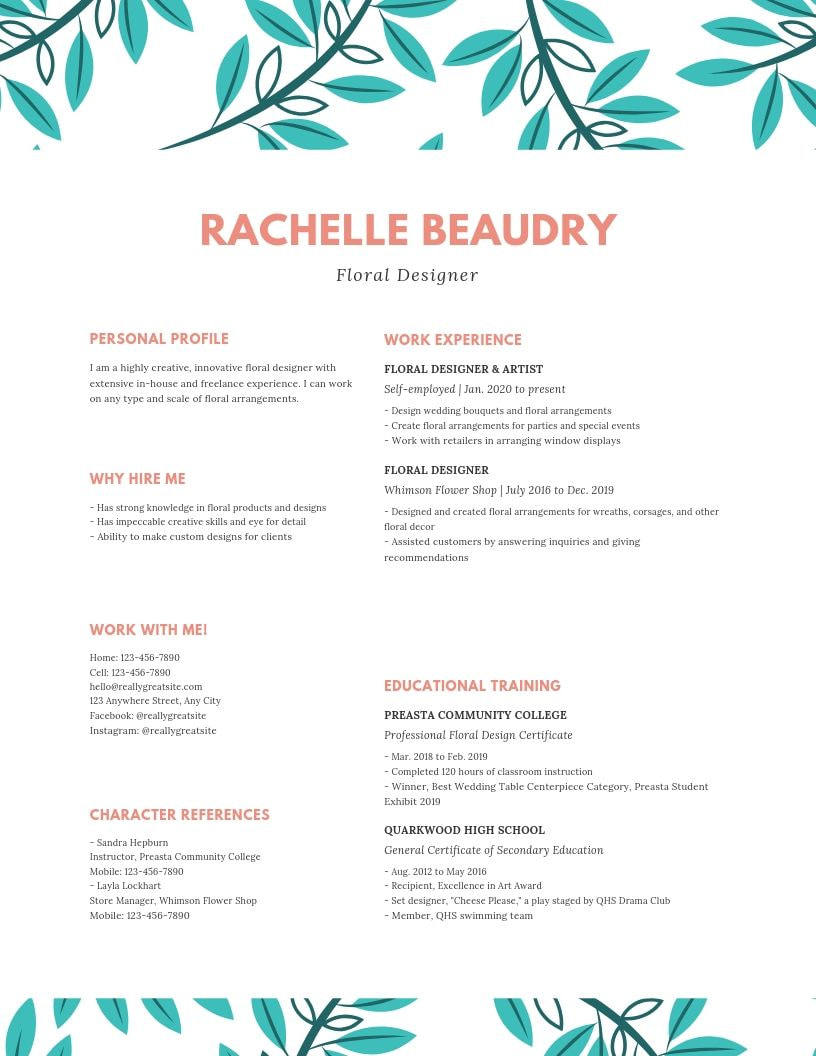
Here is a list of the best fonts for resumes: Black print on white paper has long been the standard for resumes, and it remains the most common, safe and acceptable layout.
“sans serif” means without a tail. Keep in mind that not all fonts are easily available. Good resume font alternatives for georgia include droid serif and pt serif. These include being easy to read, enticing, and something unique.
There are some basic rules for how to use resume fonts: It is the new york times font as well as amazon’s. Garamond times new roman is probably the most commonly chosen fonts for resumes—the very reason you should avoid it,. Here are some general guidelines from our experts to get you started:
Garamond is a group of older style fonts and georgia also has a traditional look. It works well for both your resume and cover letter. All the elements of a resume are important but the font and the font size can ruin your resume in milliseconds. Here are some general guidelines from our experts to get you started: Making your resume fontastic! College of Human Ecology Career.
Since it’s part of a typeface, it works for sending your resume or cover letter digitally or physically. Continue reading below to see why these fonts will help potential employers and applicant tracking systems be able to find and correctly parse the text in your resume. Good resume font alternatives for georgia include droid serif and pt serif. Resume font size and style are more influential than you might expect. Resume Font Size 9 LISCRAG.
Arial cambria calibri didot garamond times new roman helvetica Georgia is our second serif font on the list, and many large names use it today; Good resume font alternatives for georgia include droid serif and pt serif. All the elements of a resume are important but the font and the font size can ruin your resume in milliseconds. Best Font for Resume What Font Should a Resume Be?.
Since It’s Part Of A Typeface, It Works For Sending Your Resume Or Cover Letter Digitally Or Physically.
Bad resume fonts include times new roman, courier, comic sans, papyrus, impact, futura, lucida console, and arial. However, black type is not the only choice nowadays. Follow the above tips and make your resume stand out of the crowd. A font size of 10pt or 12pt;